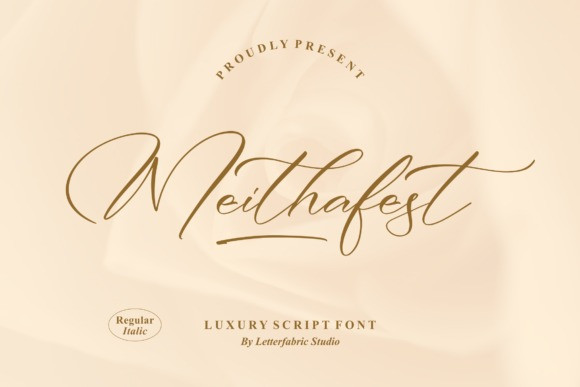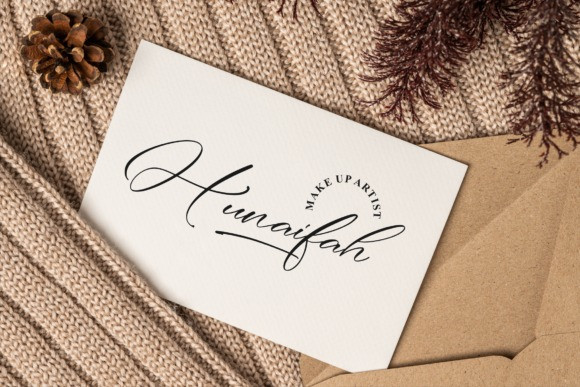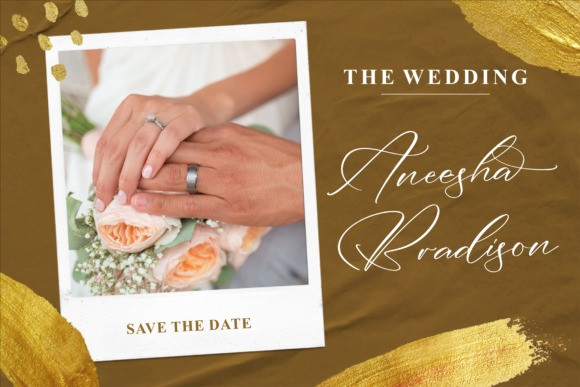
Meithafest Font
Meithafest is a delicate and fashionable script font. It is perfect for any branding project such as logos, t-shirt printing, creative products, and more. It will look extraordinary in a variety of contexts. This font is PUA encoded which means you can access all of the glyphs and swashes with ease.